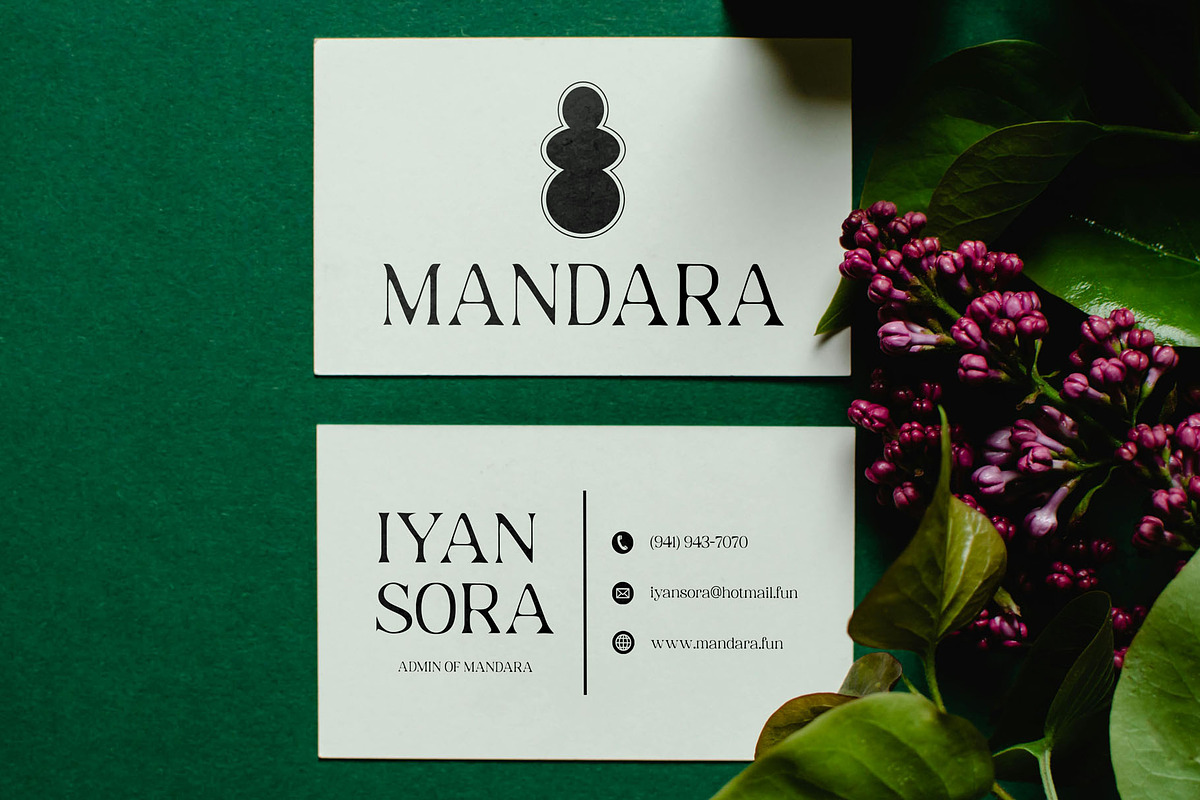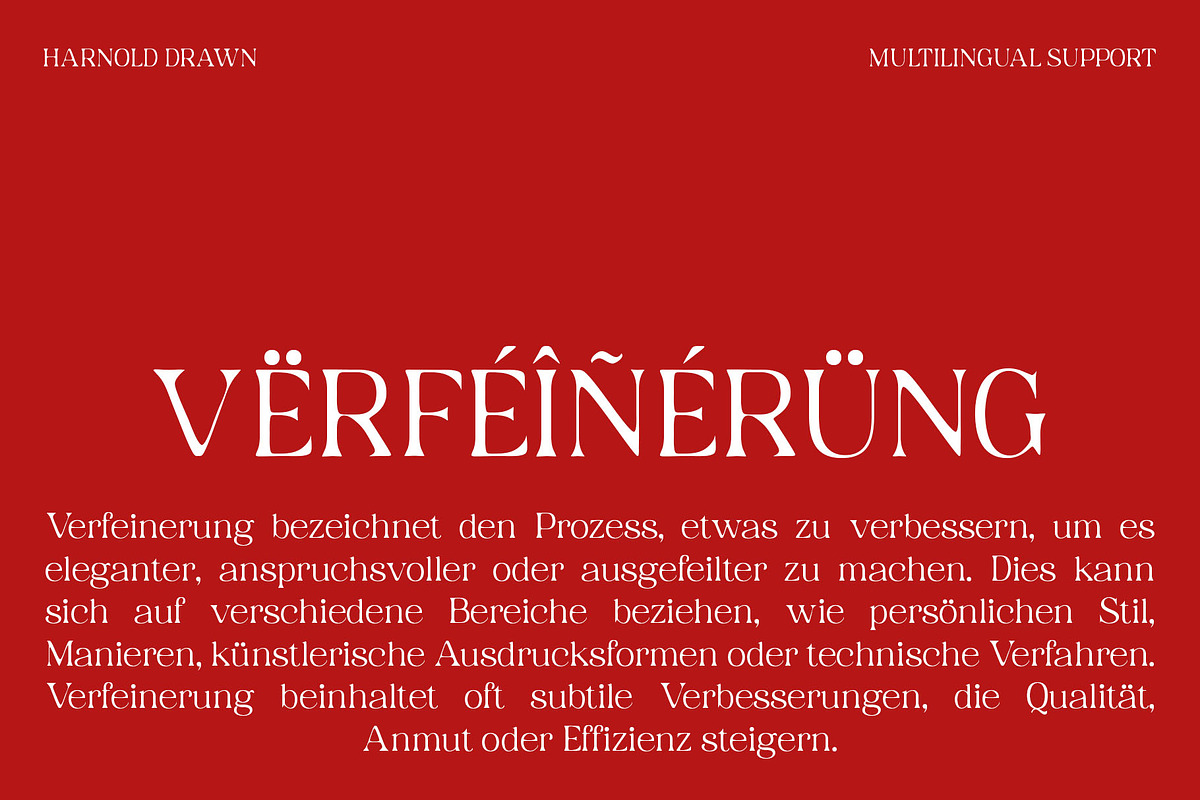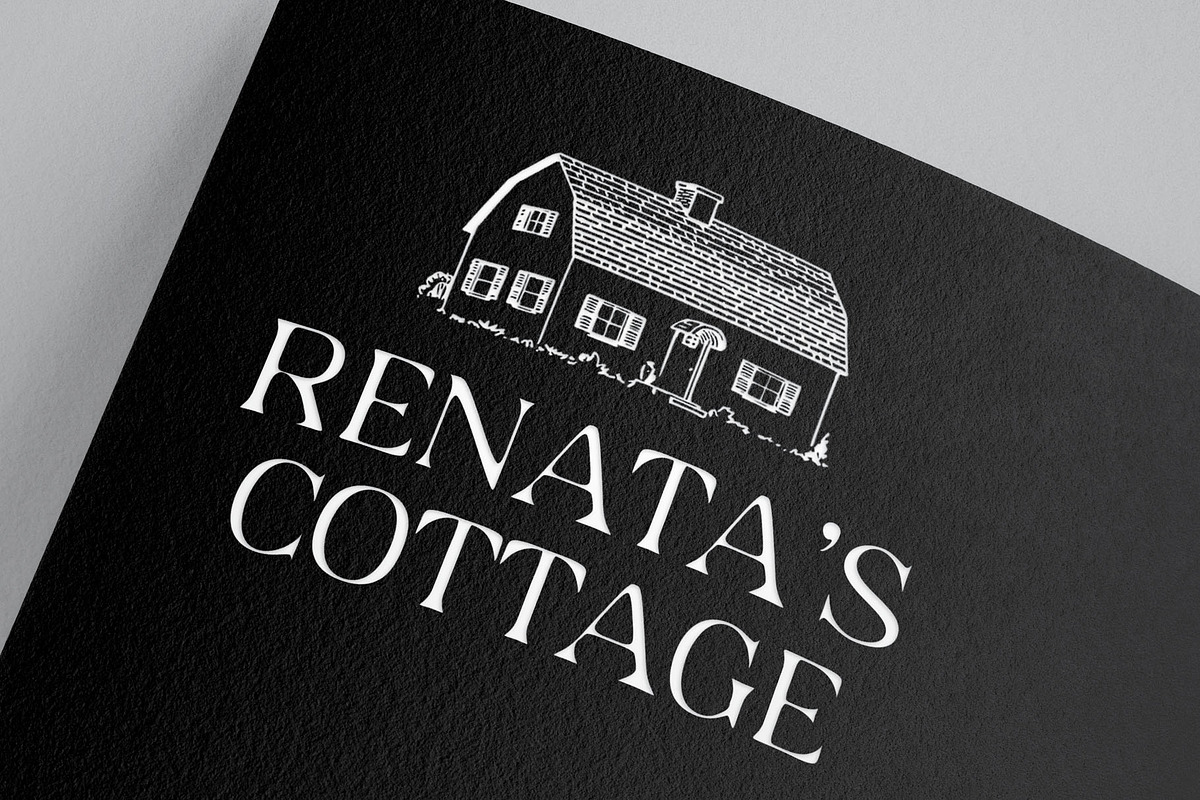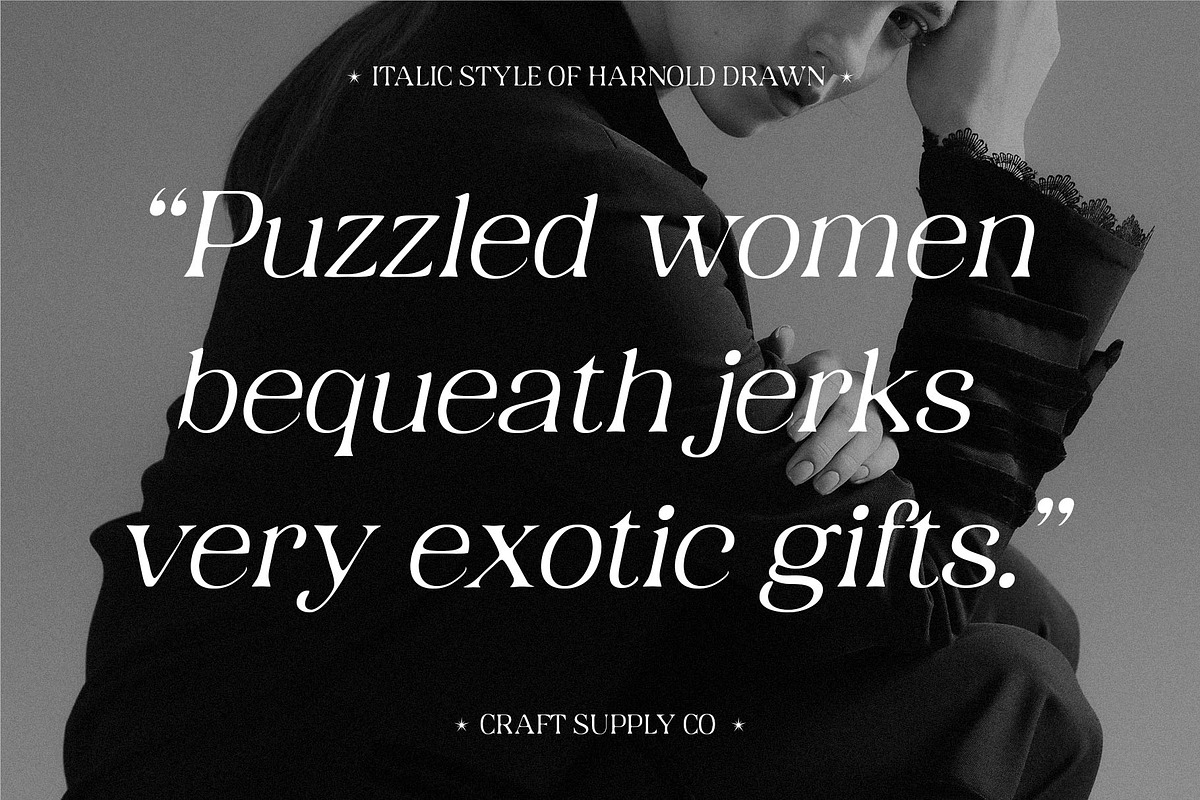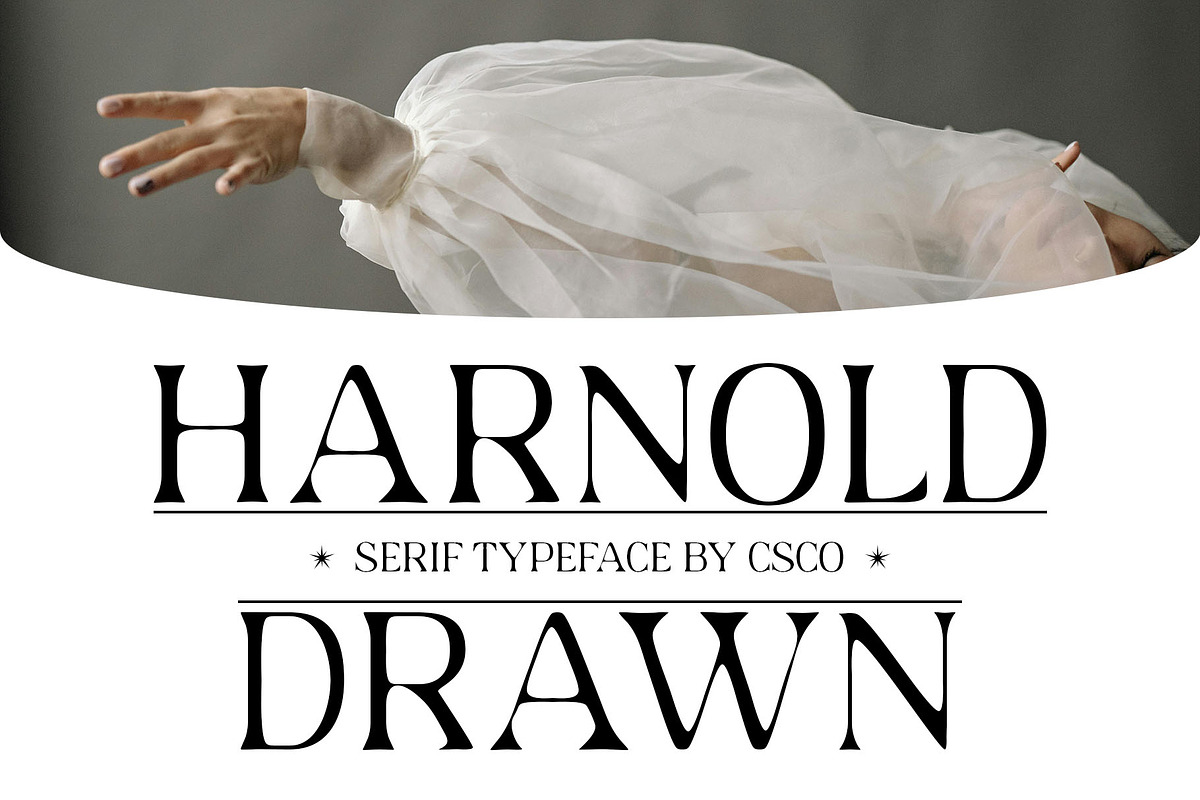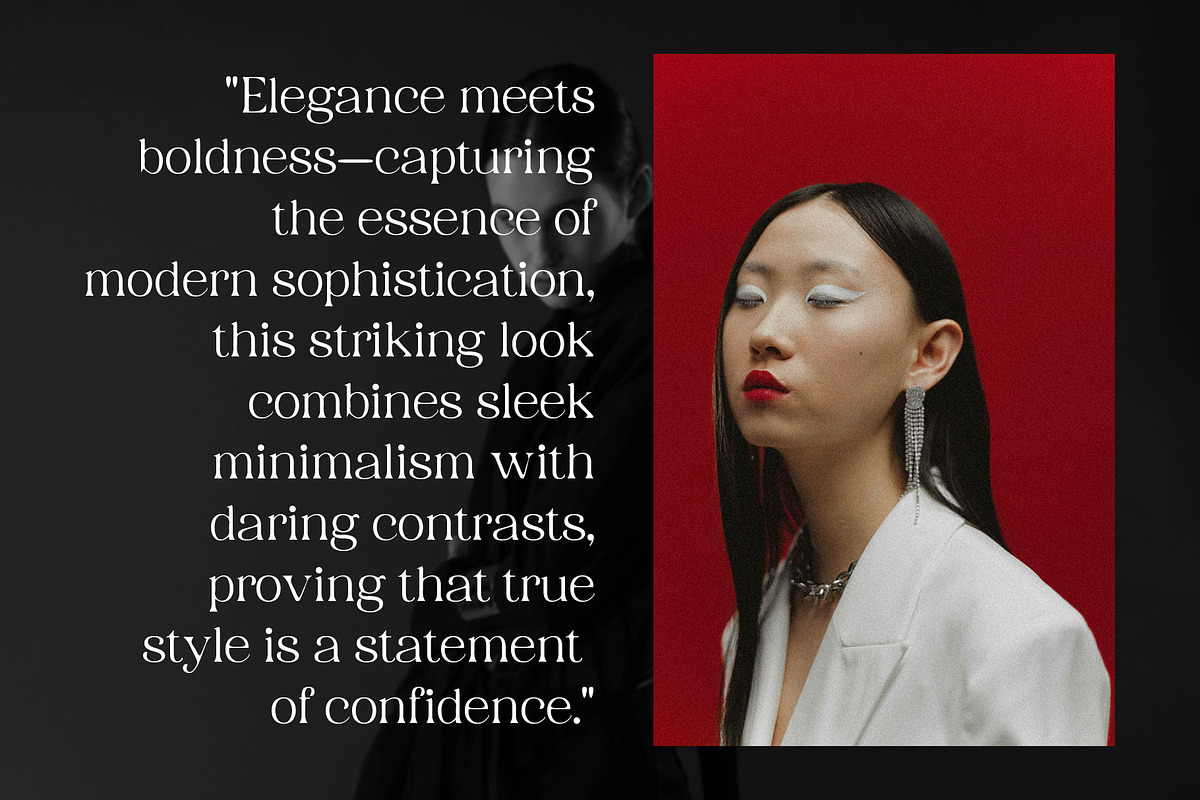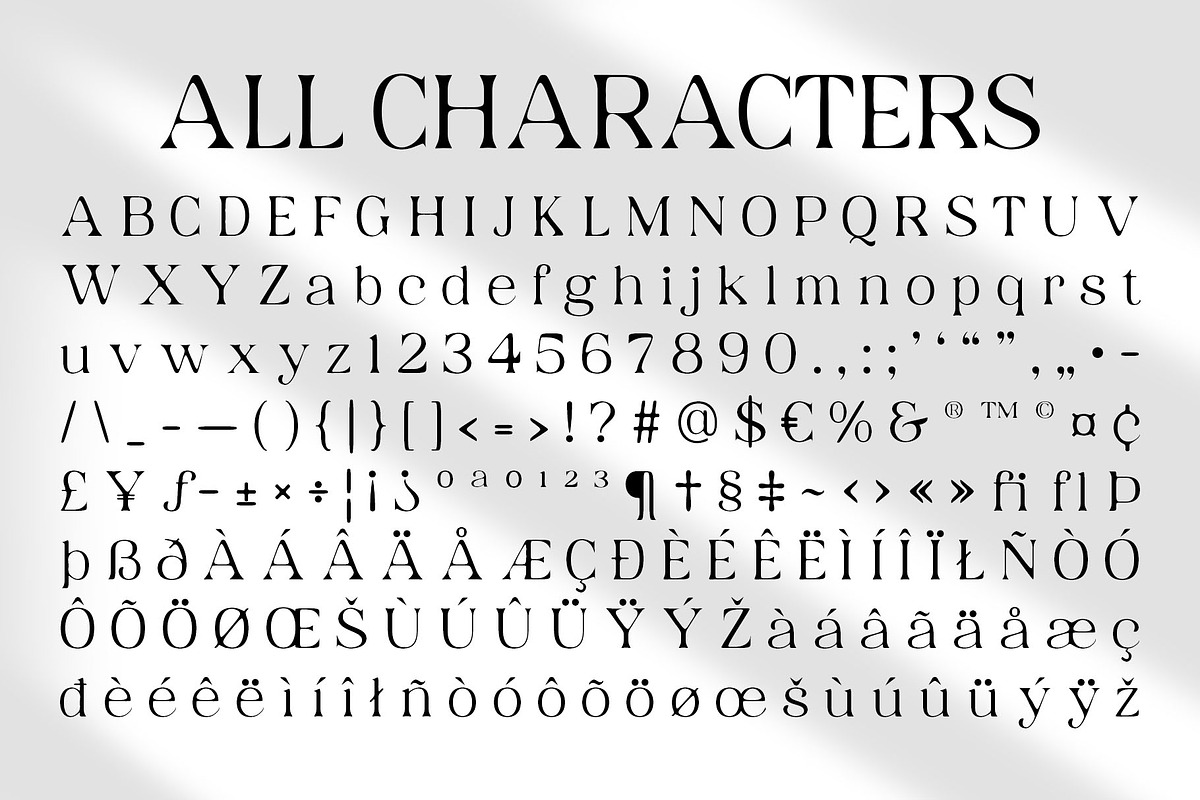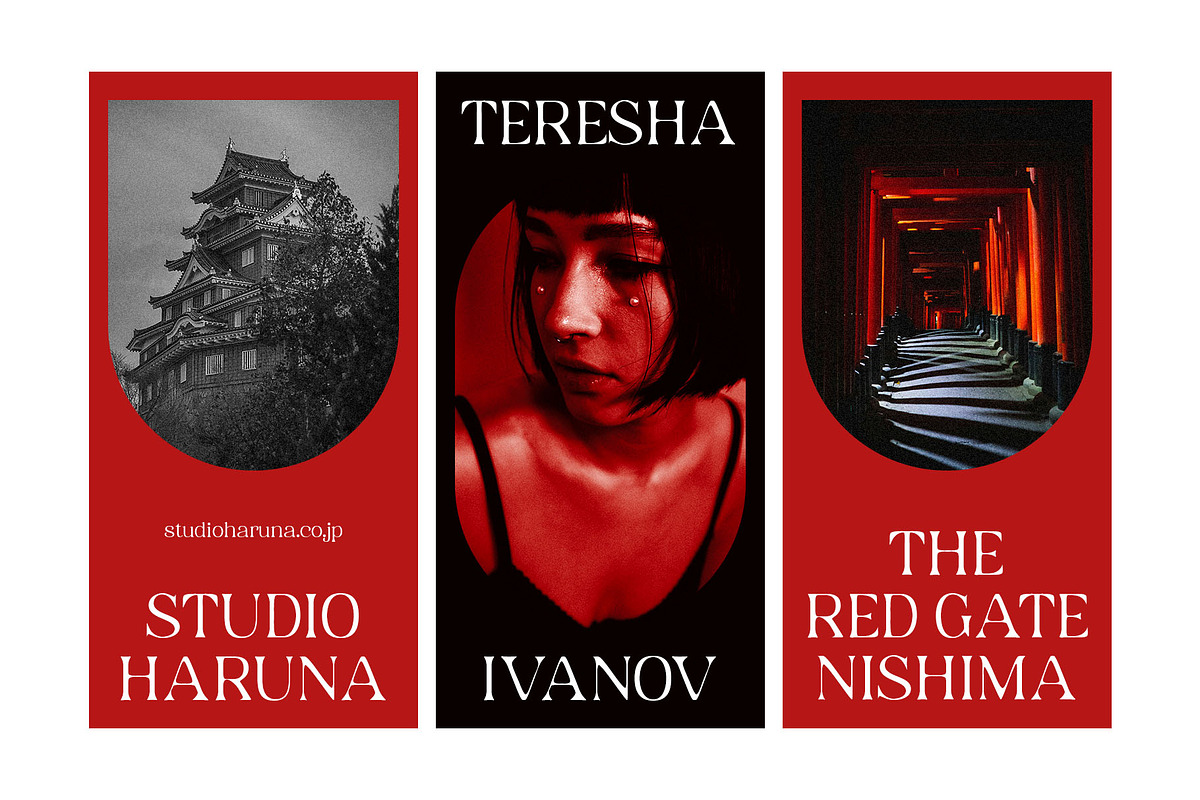
Harnold Drawn
Harnold Drawn Font – A Modern Serif with Artistic Hand-Drawn Elegance
Minimalist Sophistication with a Sketch-Like Charm Harnold Drawn is a modern serif font that combines clean lines and elegant proportions with a delicate, hand-drawn effect, giving it a refined yet artistic presence. Each letter appears as if it has been expertly sketched, adding a subtle organic feel to its structured design. This unique combination makes it an excellent choice for those seeking a blend of sophistication and artistic expression.
Refined Letterforms with a Handcrafted Touch While maintaining the timeless beauty of a modern serif, Harnold Drawn introduces an expressive, handcrafted aesthetic that enhances its visual warmth and charm. The soft, sketched details create a sense of depth and authenticity.
Versatile for Luxury and Artistic Designs Harnold Drawn is perfectly suited for luxury branding, high-end fashion, premium product packaging, and creative editorial design. Its graceful yet organic quality makes it ideal for stylish logos, magazine headlines, book covers, and artistic displays. The sketch-like strokes add a touch of personality, making it perfect for projects that demand both refinement and individuality.
Elevate Your Typography with a Hand-Drawn Essence With its seamless fusion of structure and artistry, Harnold Drawn offers a sophisticated yet expressive approach to modern typography. It’s a font that speaks to both precision and creativity, making it an exceptional choice for designers looking to craft an elegant yet distinctive visual identity.